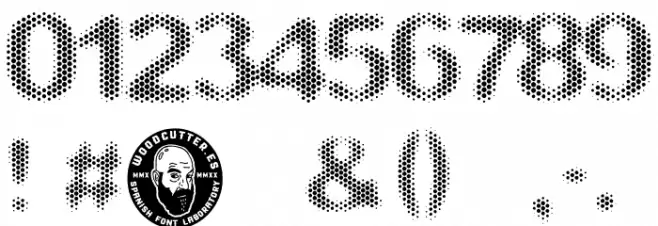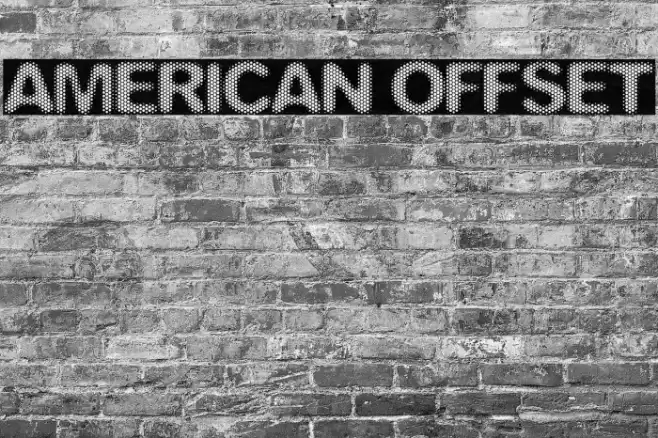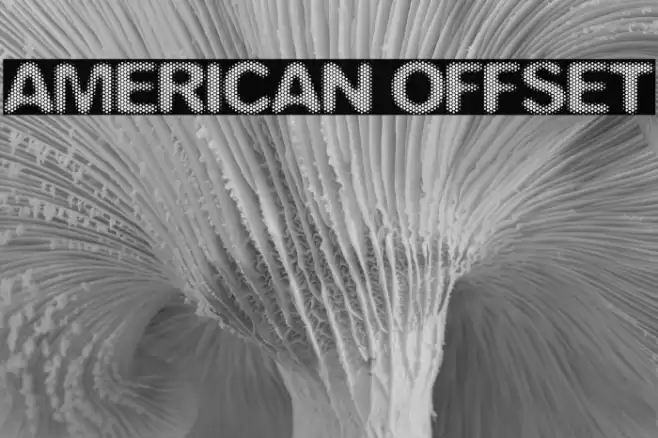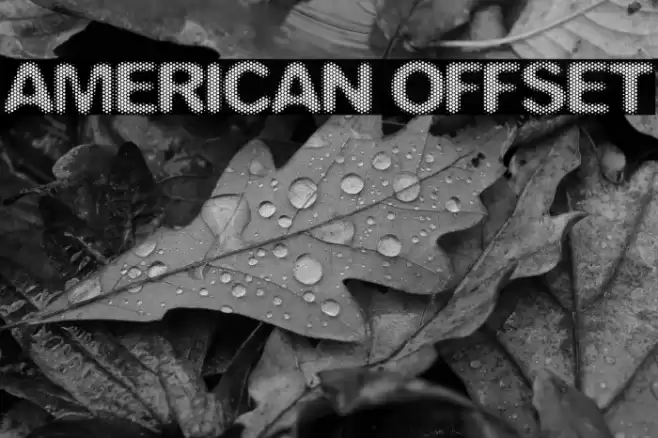
American Offset Font
American Offset Description
This font features a unique dotted pattern that creates a visually striking effect. Each character is composed of a series of evenly spaced dots, giving it a textured and dynamic appearance. The design is bold and eye-catching, making it ideal for projects that require a strong visual impact. The uppercase and lowercase letters, along with numbers and special characters, maintain a consistent style, ensuring uniformity across different uses. This font is particularly suitable for creative and artistic projects, where a modern and unconventional look is desired.
| Proposed Projects | Ideal for posters, album covers, branding, and any design needing a modern, artistic touch. |